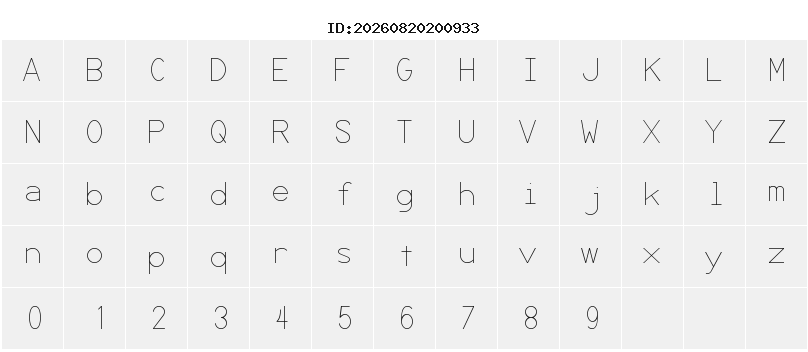
Secret Code Preview
• Font Name: Secret Code
• Full Font Name: Secret Code
About Secret Code.ttf
Secret Code.ttf is a modern, elegant sans-serif font designed for ultimate readability and visual harmony. Perfect for branding, headlines, web design, and print materials.